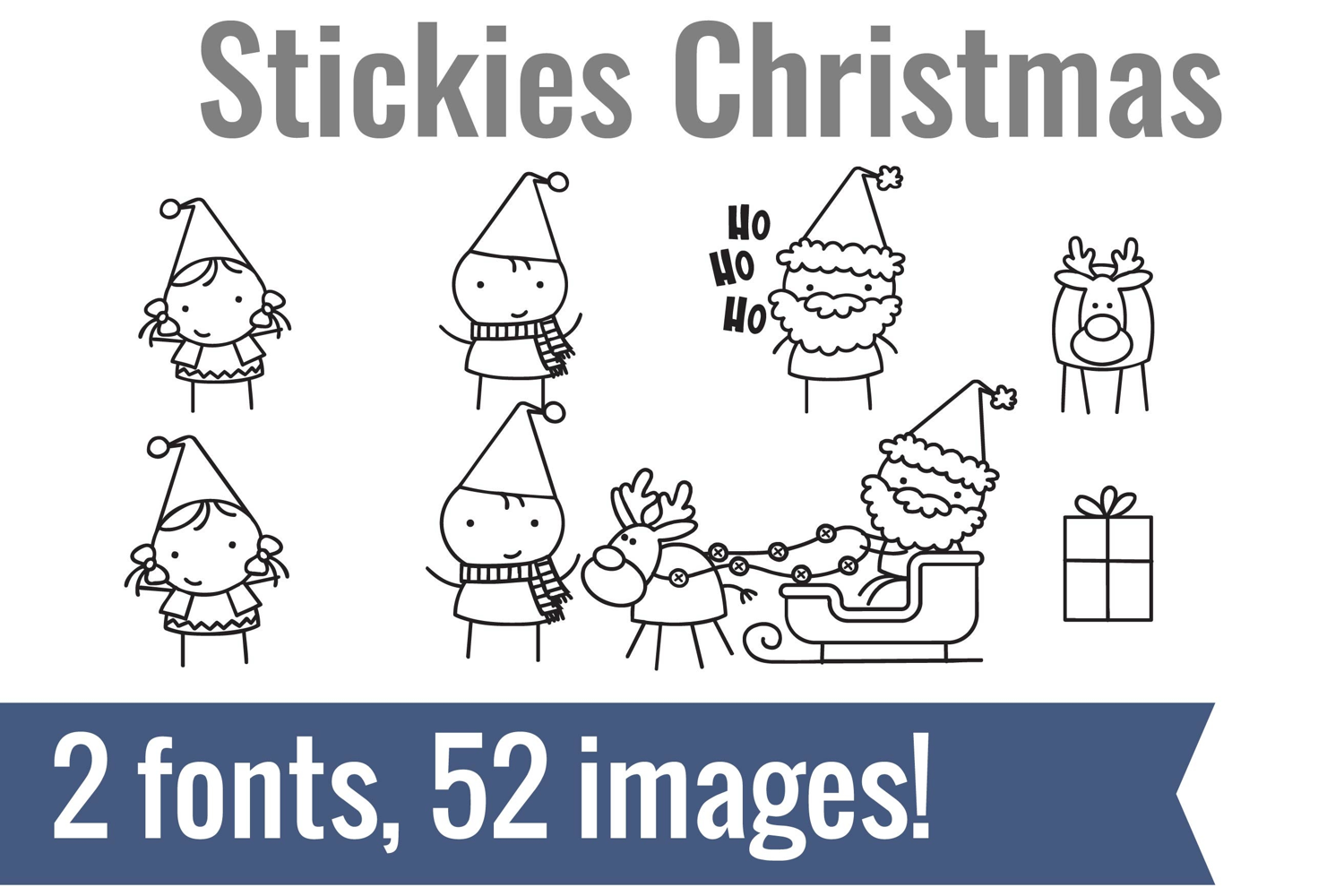
Stickies Christmas and Winter Dingbats
Unlock endless creativity with two perfectly coordinated fonts! There are two dingbat fonts in this bundle, both featuring the character of the perfect Christmas story and ornaments too.